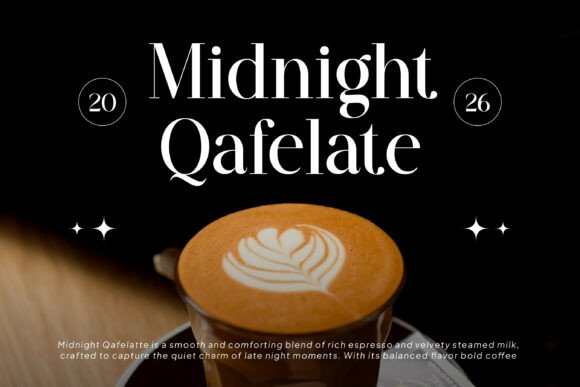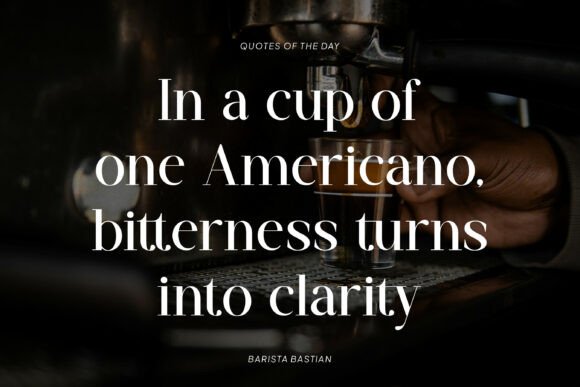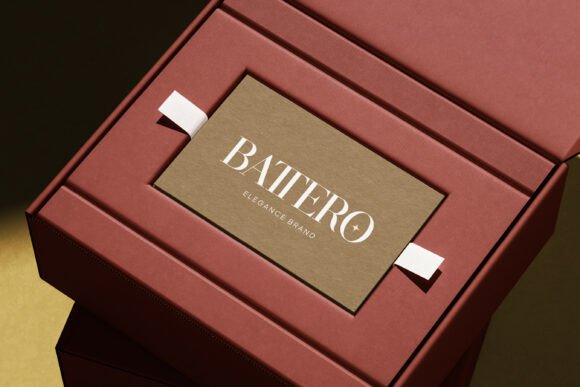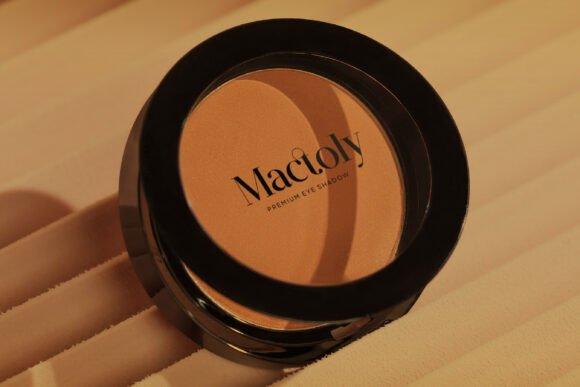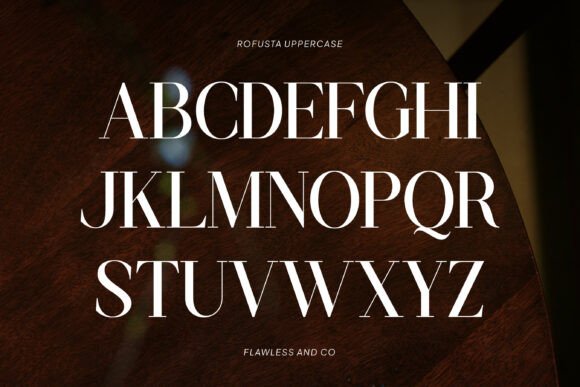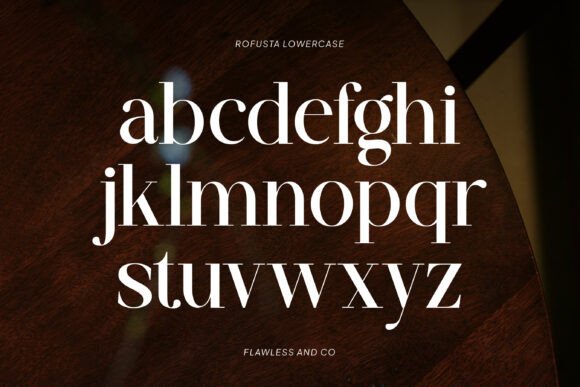
Introduction to Rofusta Font
Rofusta is a refined serif font that blends timeless elegance with a modern, stylish touch.
Designed to elevate your creative projects, Rofusta features graceful curves, sharp serifs, and beautifully balanced letterforms that exude sophistication and charm .
Key Features of Rofusta Font
Why Choose Rofusta Font?